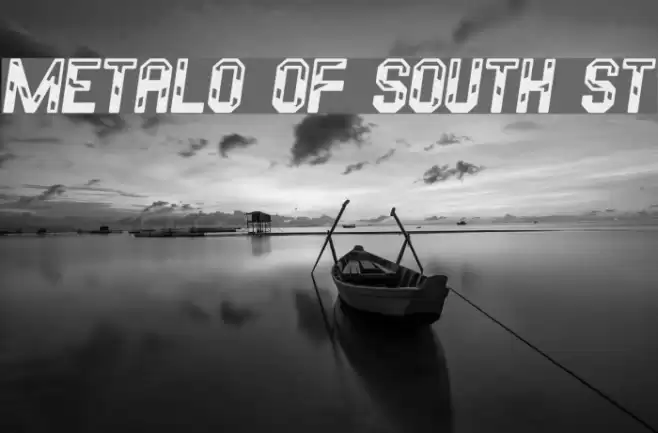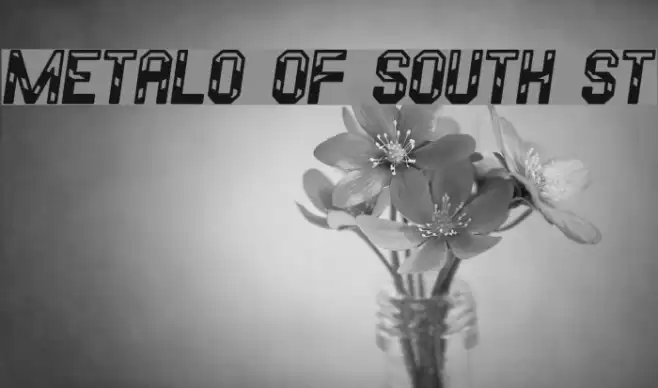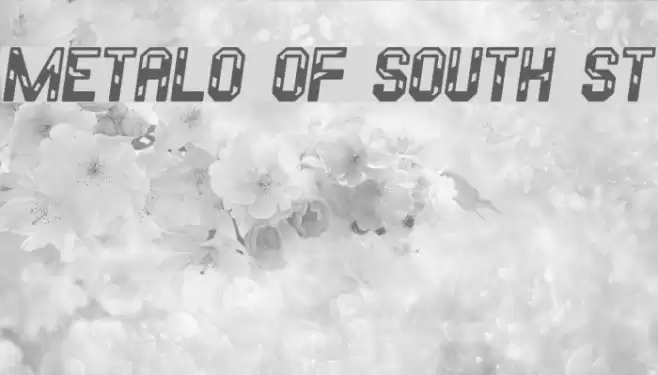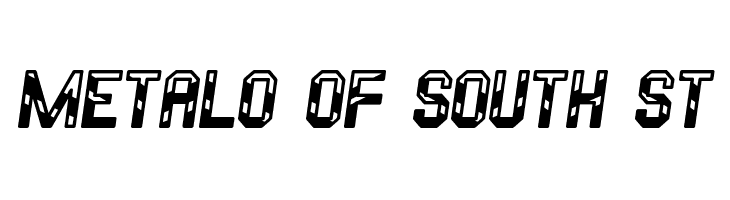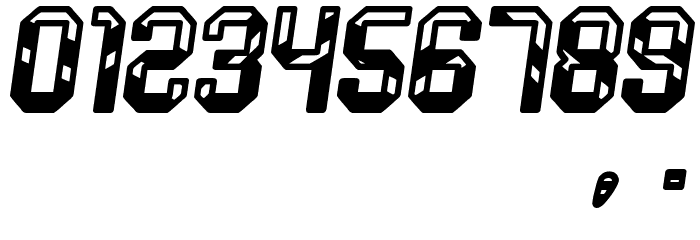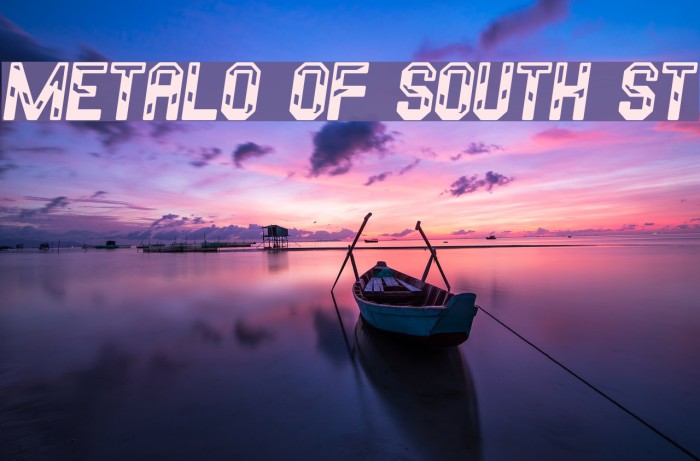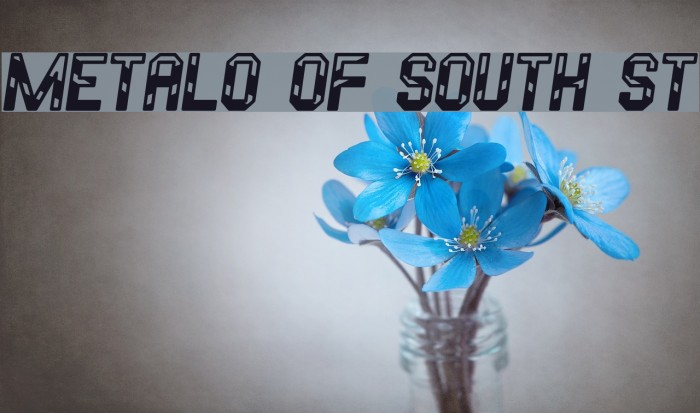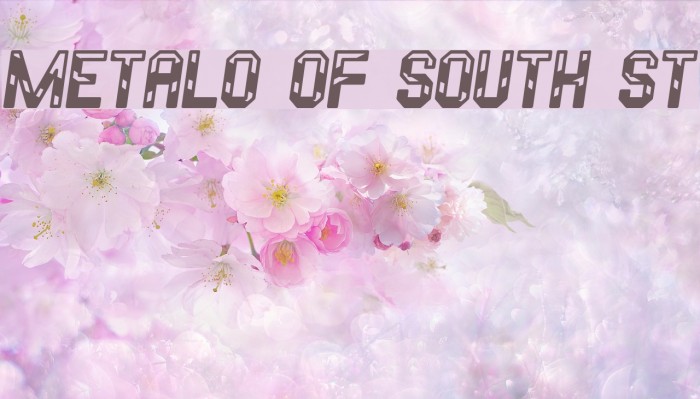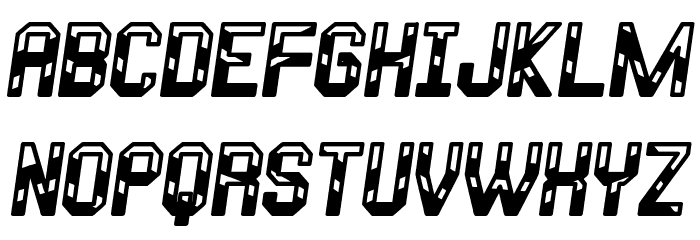
Metalo Of South St Font
Metalo Of South St Description
This font features a bold, geometric design with a three-dimensional effect, reminiscent of industrial or mechanical aesthetics. Each character is crafted with sharp angles and a blocky structure, giving it a robust and sturdy appearance. The letters and numbers are designed with a shadow effect that adds depth and dimension, making them stand out prominently. The font's style is both modern and futuristic, suitable for projects that require a strong visual impact. Its unique design elements make it ideal for attention-grabbing headlines or logos.
A bold, geometric font with a 3D shadow effect, perfect for impactful designs from Uncategorized fonts.
- Proposed Projects: Ideal for branding, logos, posters, and any design requiring a strong, industrial look.